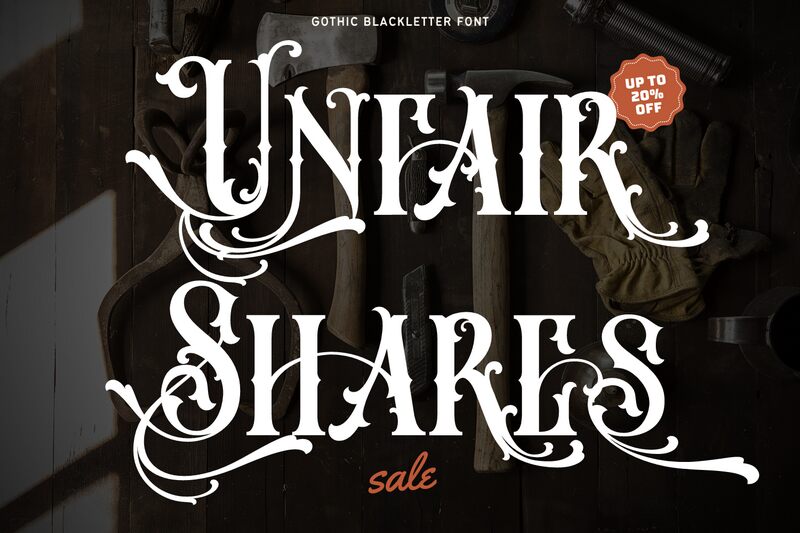
Unfair Shares Font by 177Studio is a captivating display font with a retro twist. Inspired by cool old-style blackletter letters, it features unique alternative characters like swashes and ligatures, allowing for endless design possibilities. With its semi-light weight and italic version, it adds an air of elegance to any project.
Perfect for gothic, tattoo, serious, and horror-themed designs, Unfair Shares Font is ideal for creating music album covers that exude mystique or tattoo logos that demand attention. It also lends itself perfectly to whiskey labels that exude sophistication or packaging pomades that embody strength.
Unfair Shares